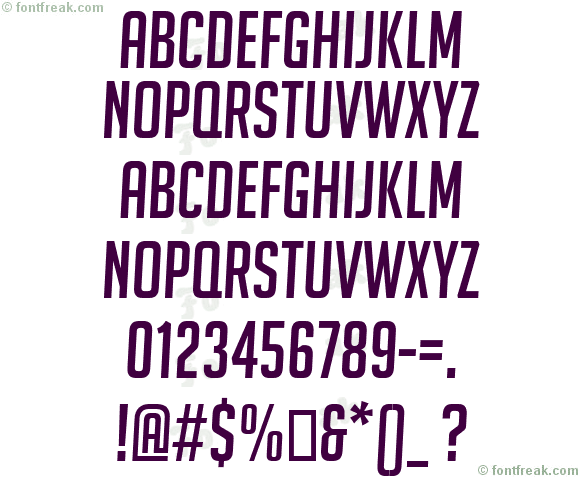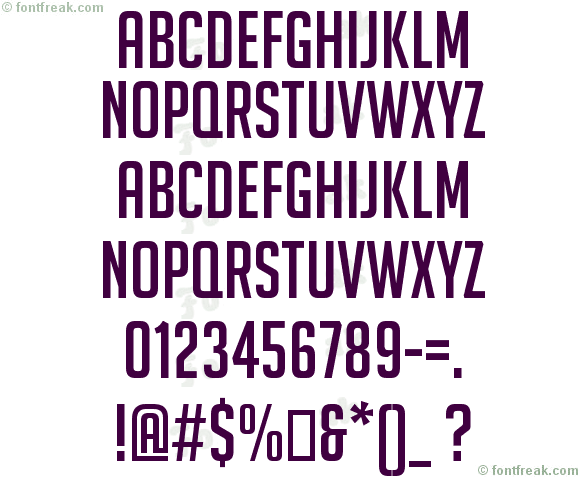
BigNoodleTitling Oblique
BigNoodleTitling
Big Noodle Titling is a striking display font created by James Arboghast, known for its unique blend of boldness and elegance. This typeface falls under the category of decorative fonts, characterized by its oblique strokes and slightly exaggerated proportions. The font features a consistent stroke weight, offering a balanced look that captures attention without overwhelming the viewer. Its clean lines and generous spacing between characters enhance readability, making it an excellent choice for titles and headings.
Visually, Big Noodle Titling stands out with its playful yet professional aesthetic, making it versatile for various applications. The font's distinct character forms are well-suited for use cases such as movie posters, where eye-catching titles are essential. Additionally, it works beautifully for event flyers and promotional materials, allowing businesses to convey their brand identity effectively. Graphic designers will appreciate its adaptability for creating restaurant menus that need to grab customers' attention while maintaining clarity. Small business owners looking to elevate their branding can also benefit from this font, as it lends a sense of creativity and modernity to marketing collateral.
The target audience for Big Noodle Titling includes graphic designers, small business owners, and content creators seeking a font that combines personality with professionalism. This font is particularly appealing for projects requiring a bold statement without sacrificing readability.
What makes Big Noodle Titling truly stand out is its ability to capture attention while remaining approachable. It balances a whimsical style with practical usability, making it an excellent choice for anyone looking to make an impact with their typographic choices. With its freeware license, users can enjoy the Big Noodle Titling font free download for personal or commercial use, allowing for endless creative possibilities.